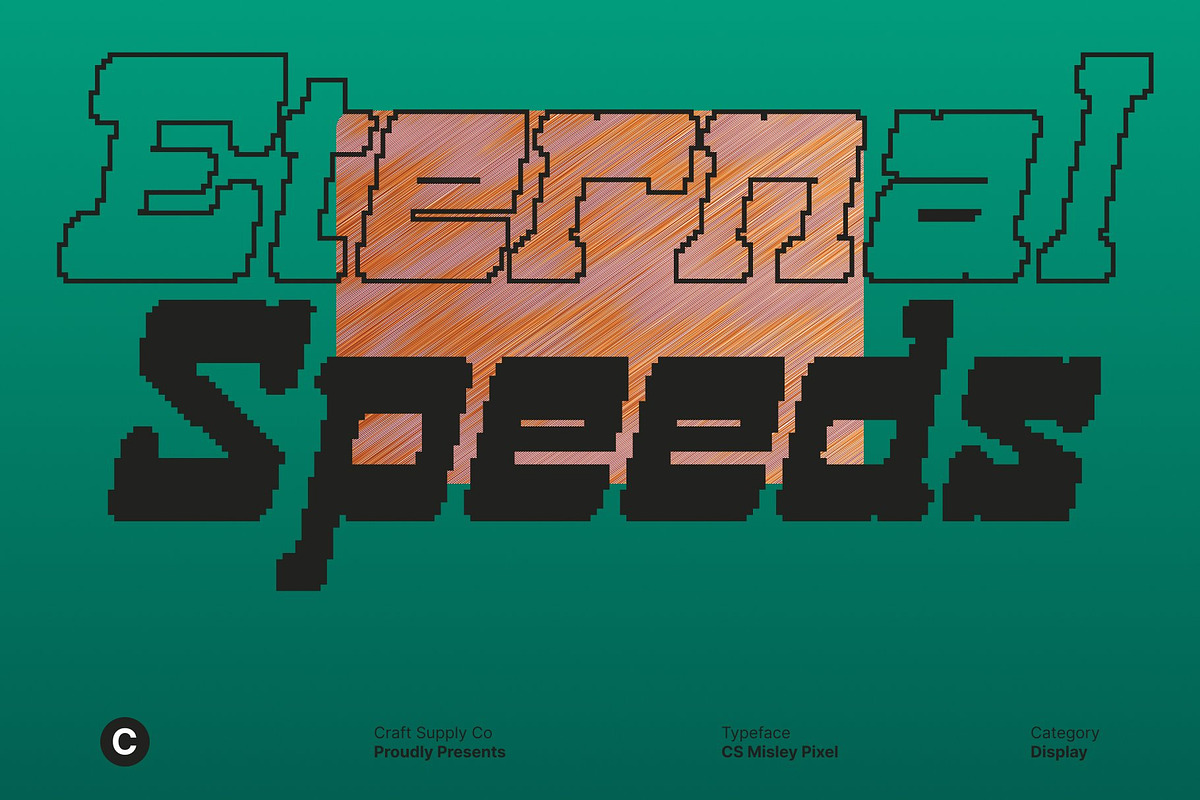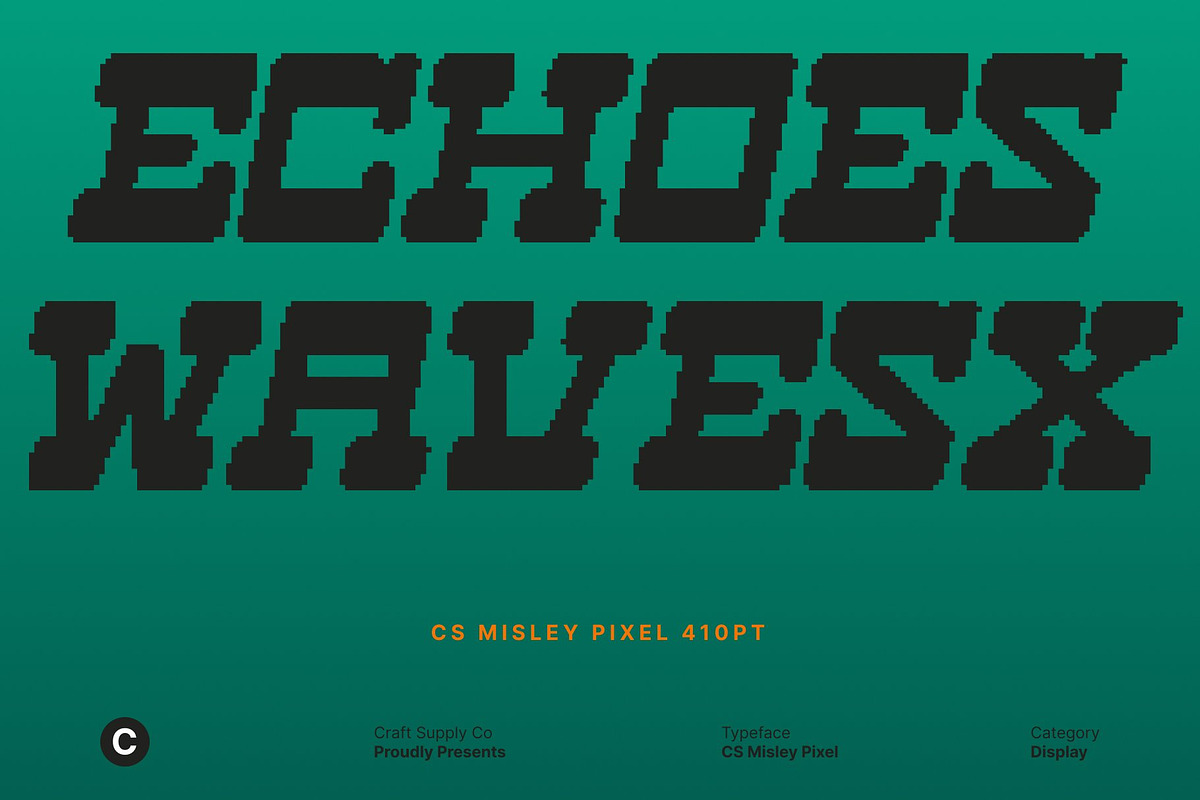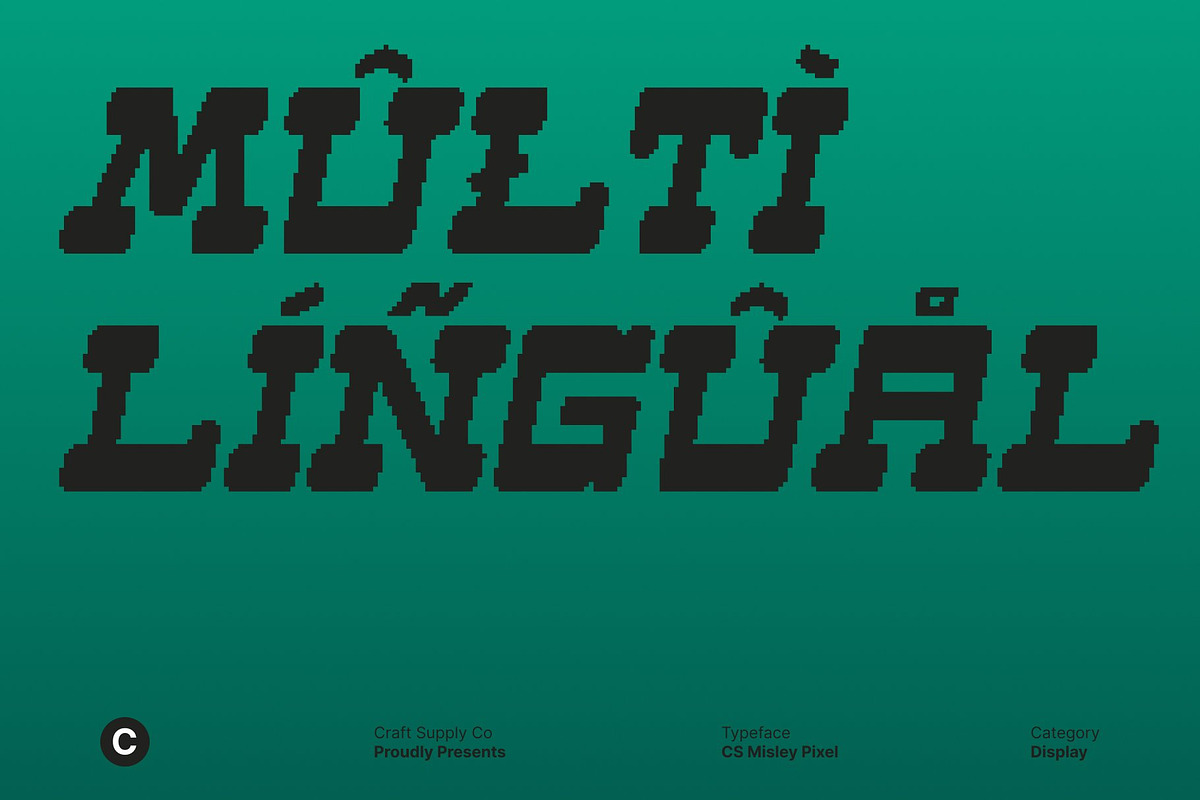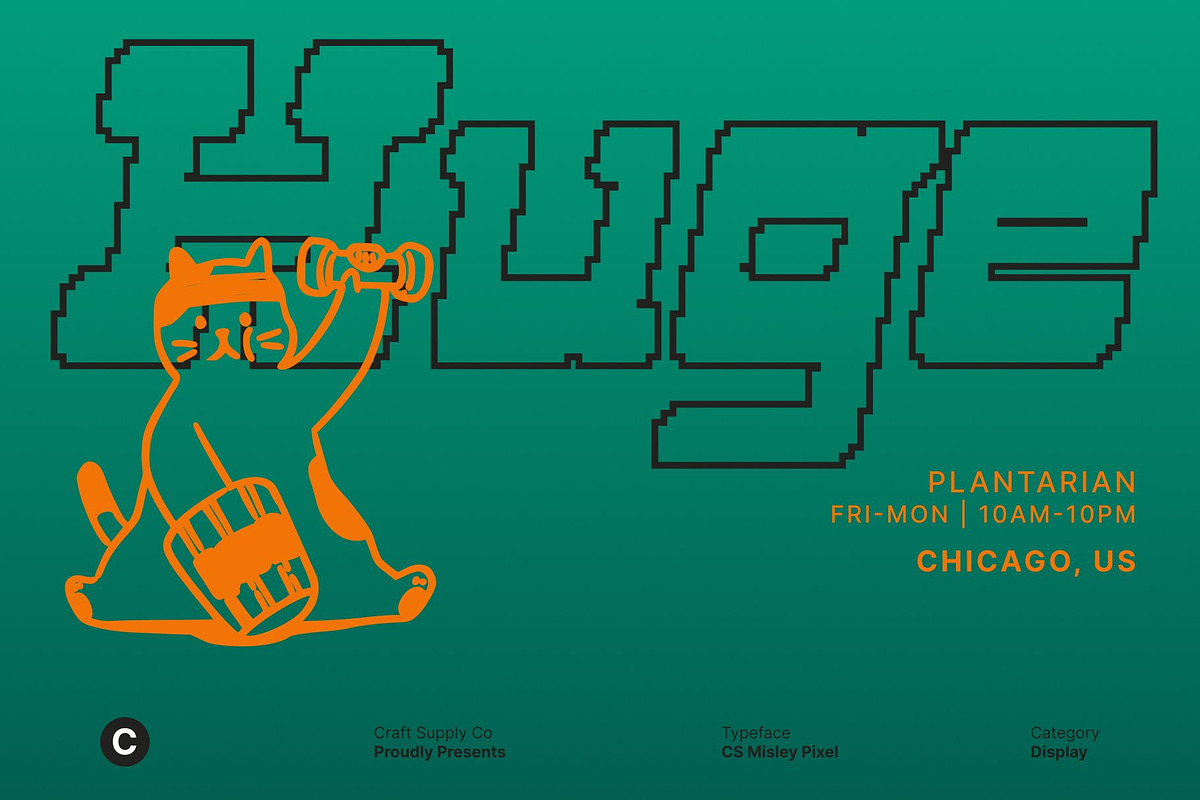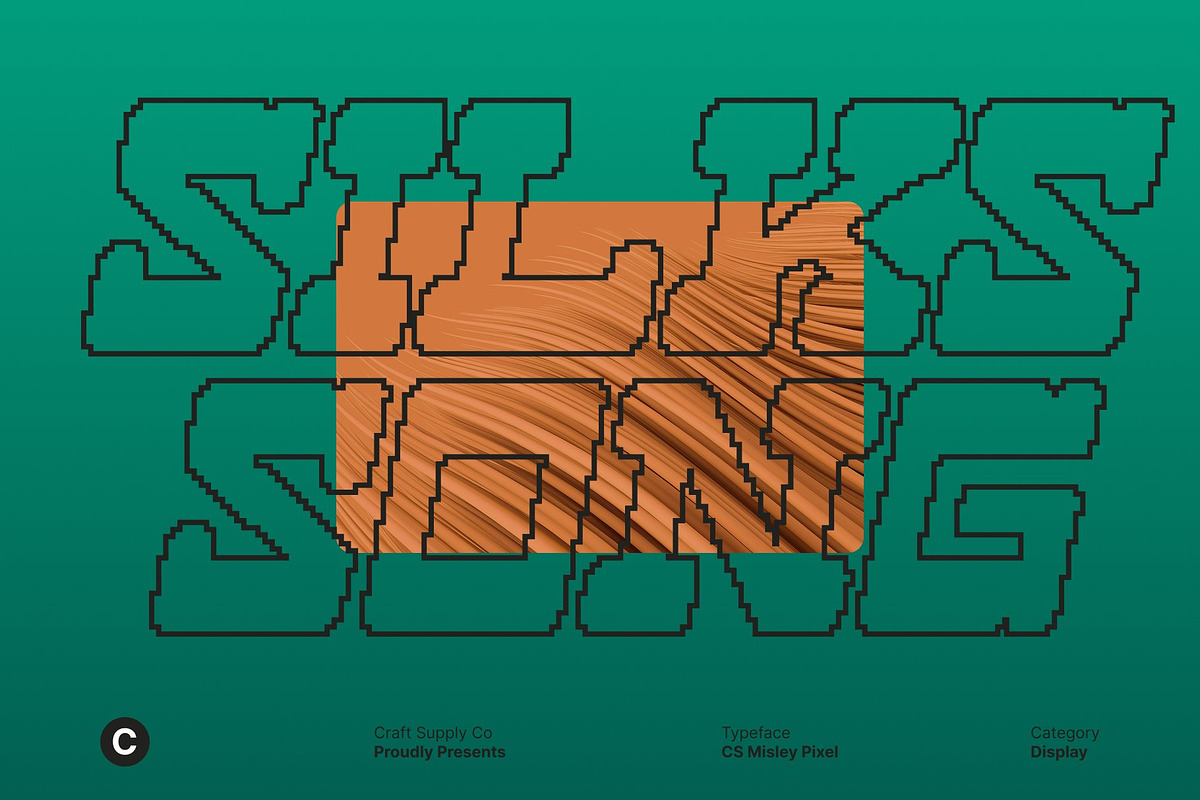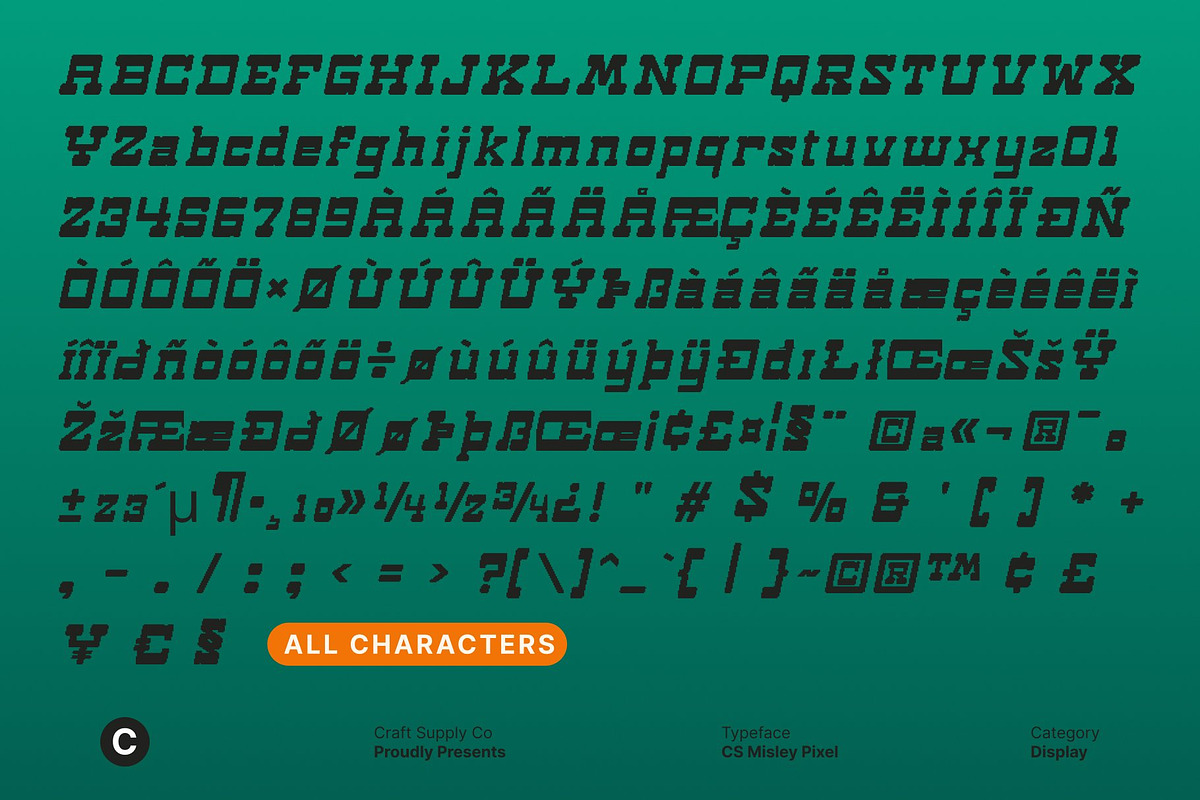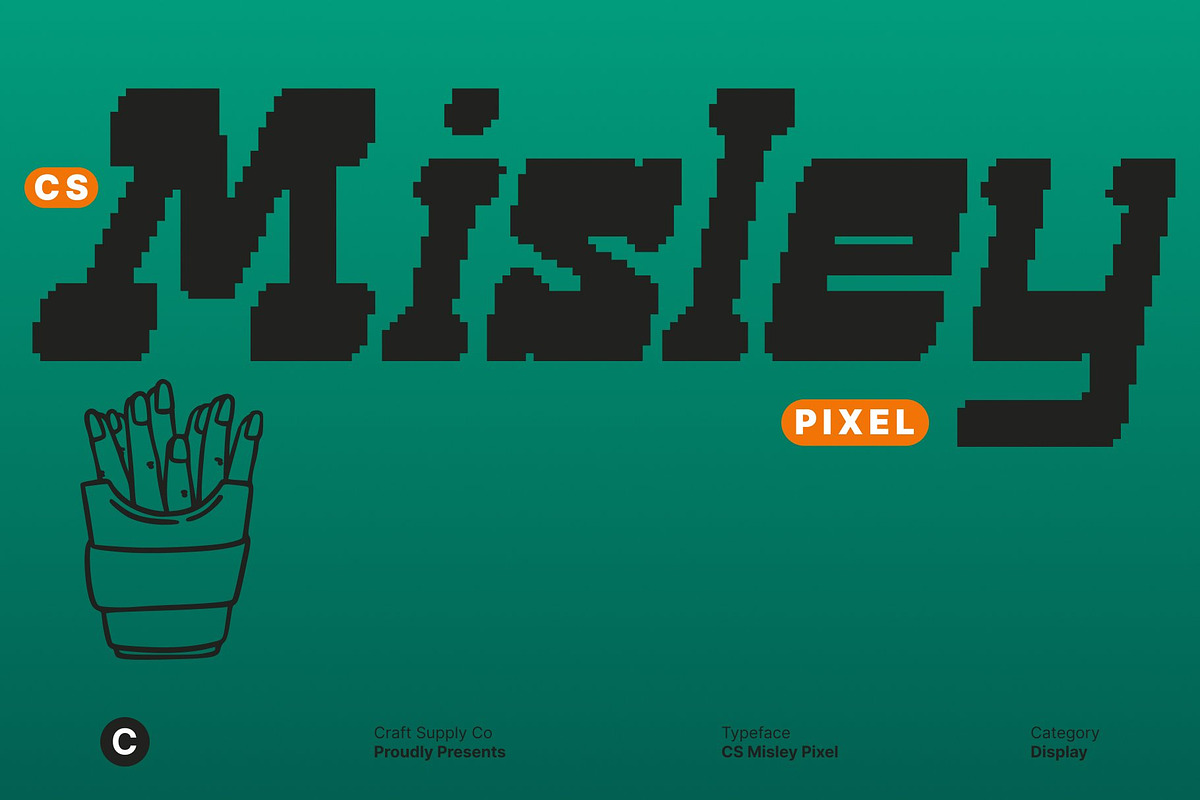
CS Misley Pixel
CS Misley Pixel – Western Display Font with Rugged Digital Frontier Character
Western Slab Display Font with Pixel Grit This is a bold western display font inspired by the raw spirit of the Wild West and enhanced with pixel-based construction. Drawing from classic frontier signage, it features wide letterforms, strong slab serifs, and subtle digital detailing that add a retro-tech edge. The result feels rugged, authentic, and visually commanding.
Wide Pixel Letterforms with Slab Strength The wide proportions and solid strokes give this font a grounded, powerful presence. Firm slab serifs combined with pixel structure reinforce readability while introducing a nostalgic digital texture. Each character feels tough and dependable, making the font ideal for bold display settings.
Rugged Western Style with Retro-Digital Flair This font captures the grit, adventure, and craftsmanship of classic western typography while blending in a pixel aesthetic inspired by old technology. The fusion of frontier tradition and digital character creates a unique visual language perfect for storytelling-driven designs with a modern twist.
Perfect for Posters, Branding, and Themed Visuals This font excels in posters, branding, logos, packaging, merchandise, and vintage-themed or western-inspired projects. Its bold character commands attention and sets a strong thematic tone, making it ideal for cowboy branding, event promotions, retro visuals, and creative digital content.